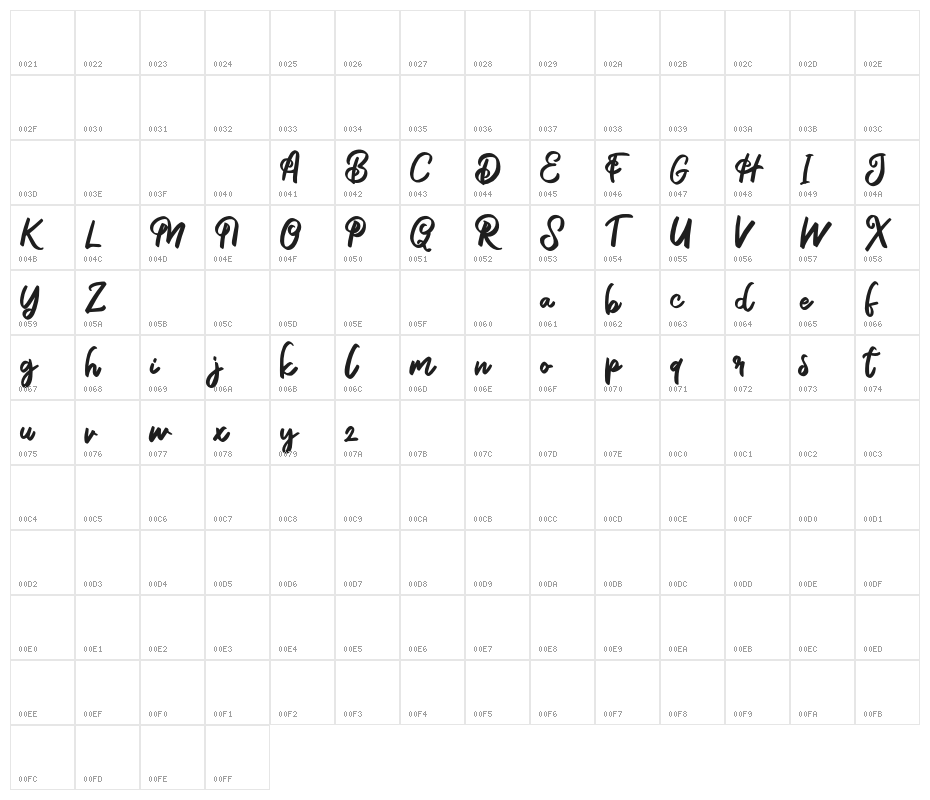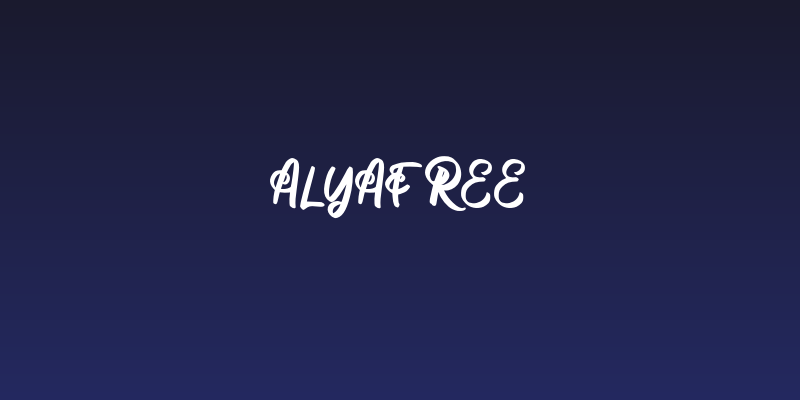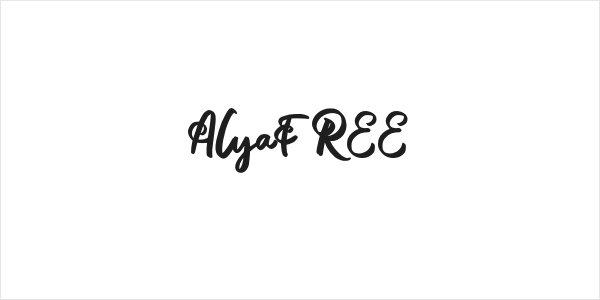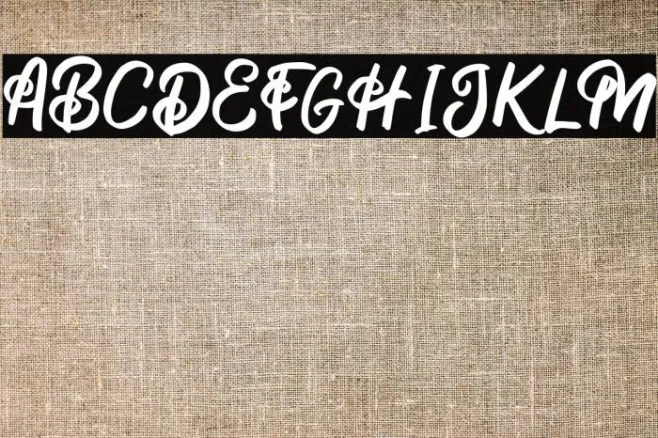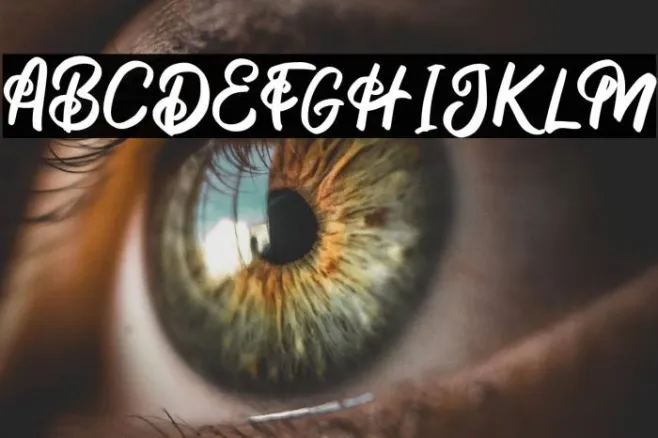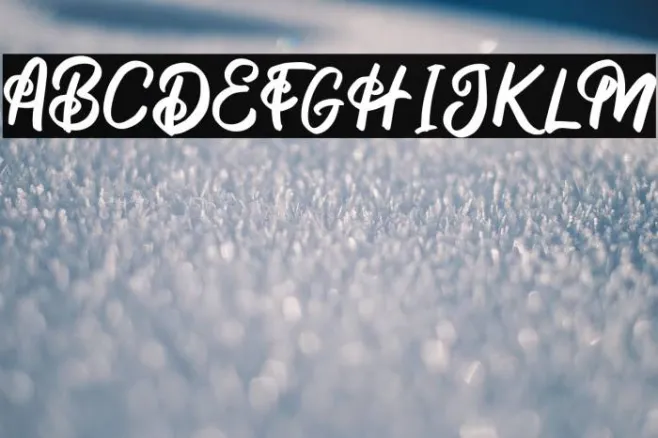
AlyaFREE Font
AlyaFREE Description
This font features a bold and expressive script style, characterized by its fluid and dynamic strokes. The uppercase letters exhibit a playful yet elegant flair, with each character seamlessly connecting to the next. The lowercase letters maintain a consistent flow, enhancing the overall cohesiveness of the design. The font's thick lines and smooth curves give it a modern and stylish appearance, making it suitable for a variety of creative applications. Its unique charm is further accentuated by the consistent weight and balanced proportions, ensuring readability while maintaining an artistic touch.
| Font Family | Alya FREE |